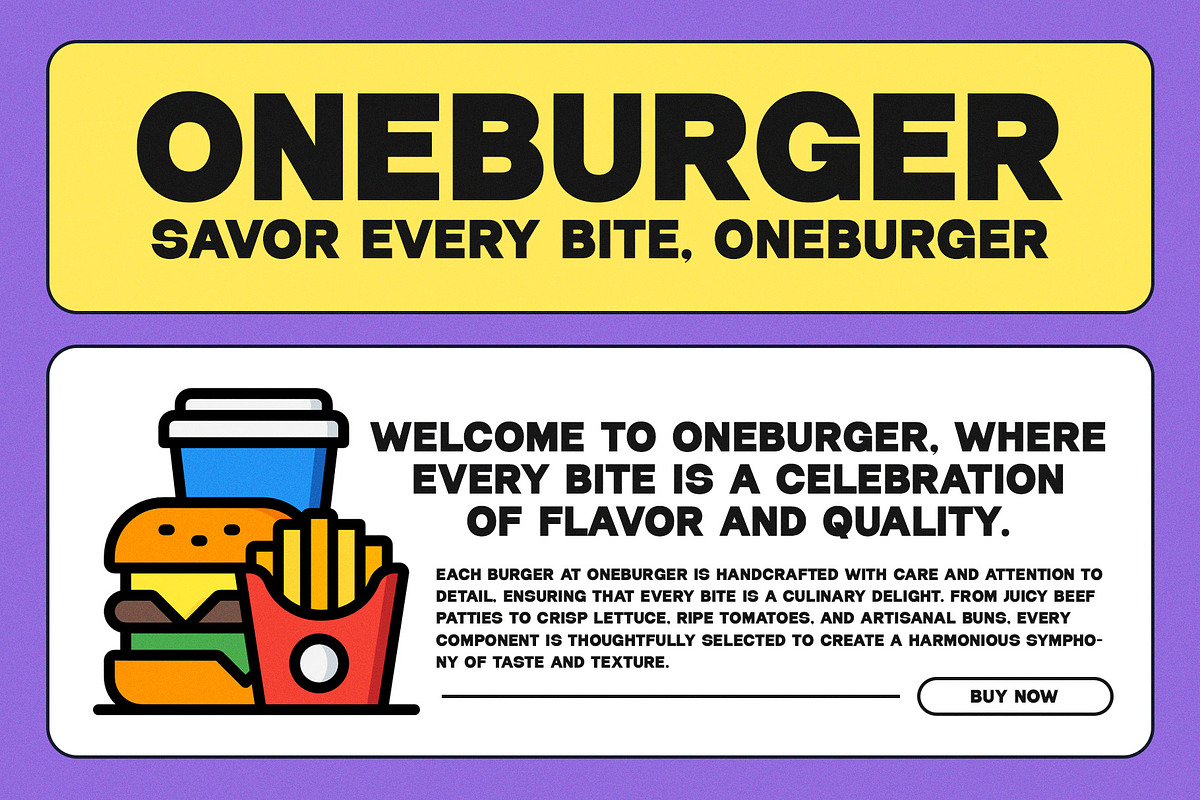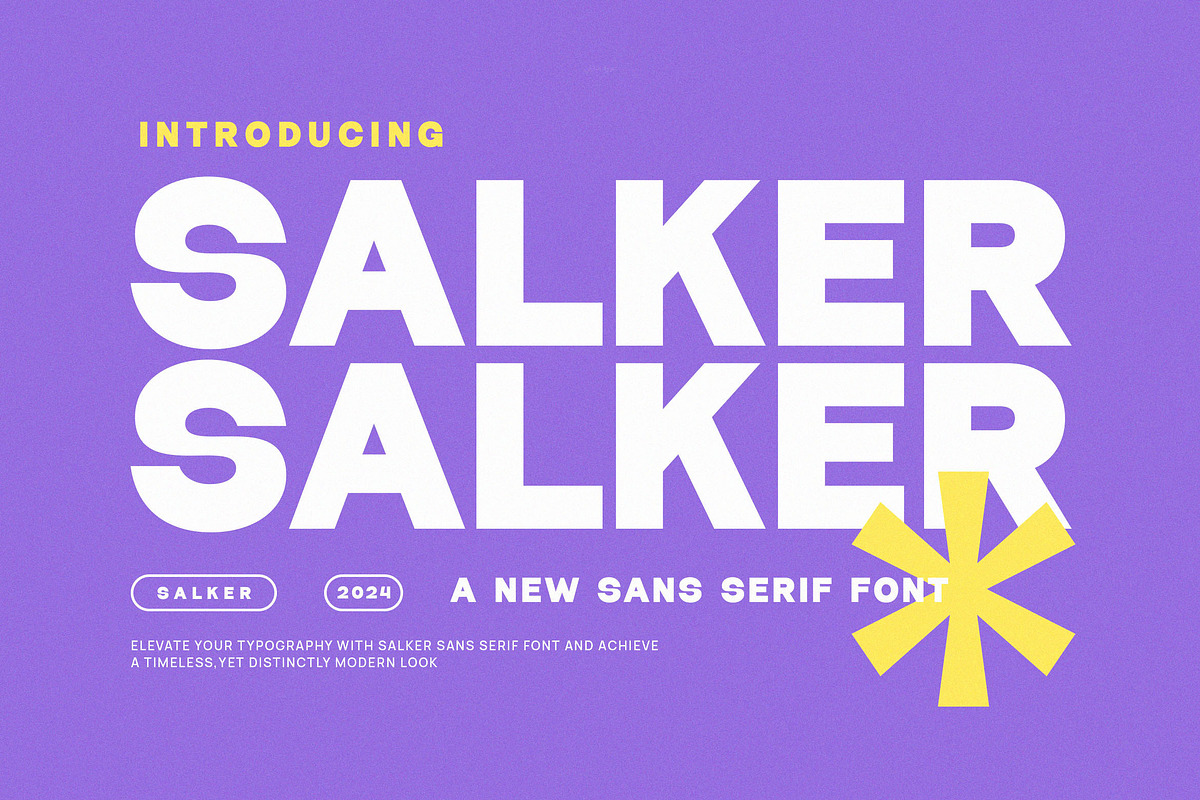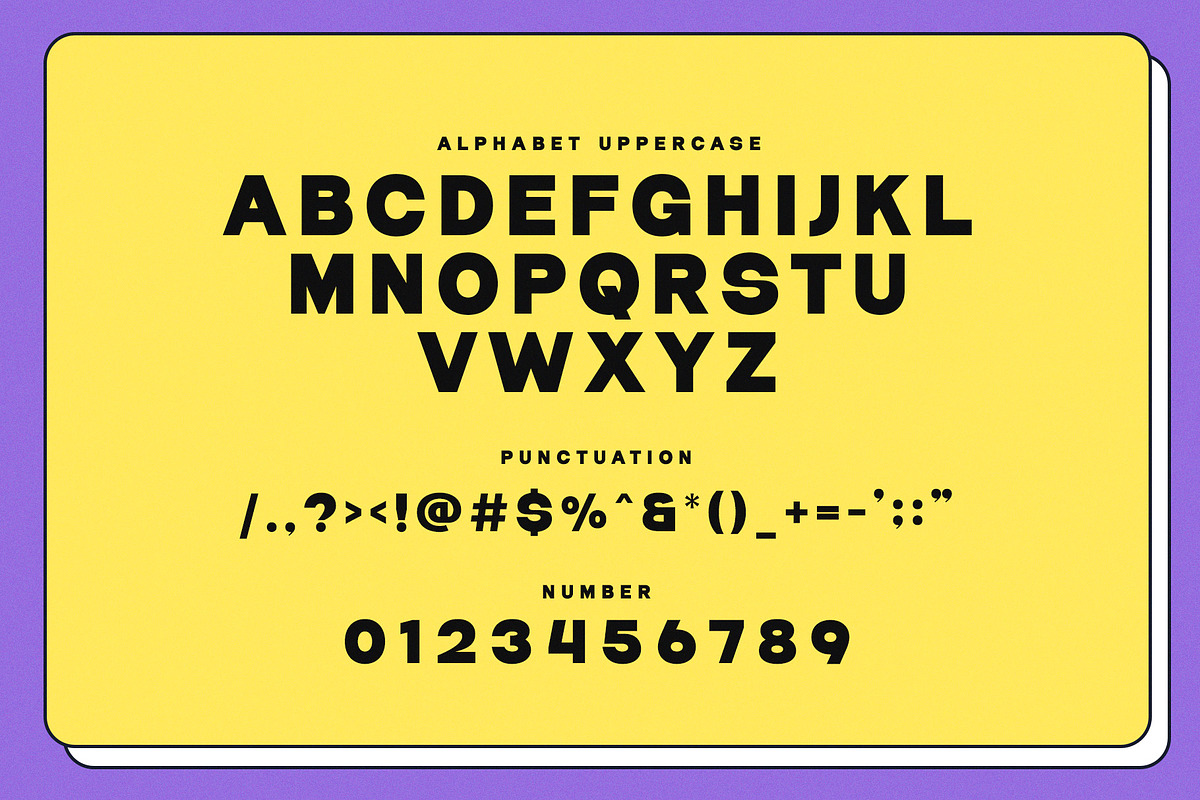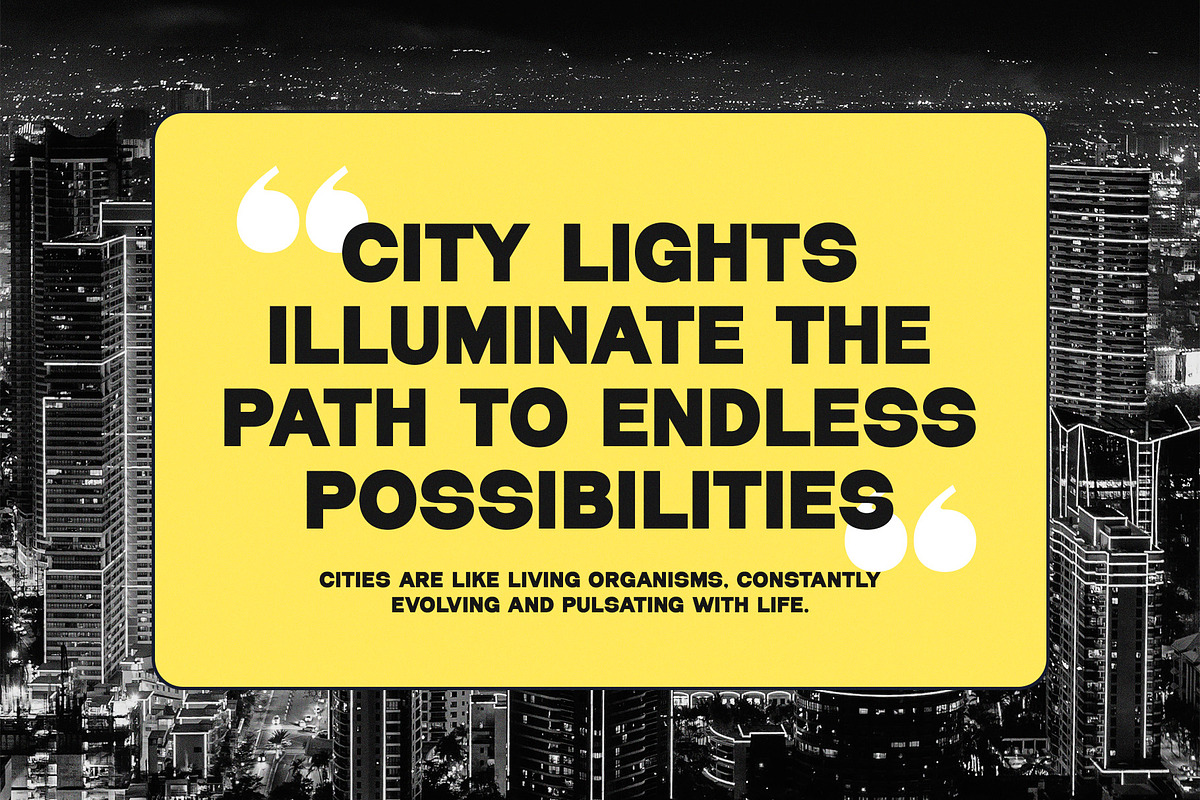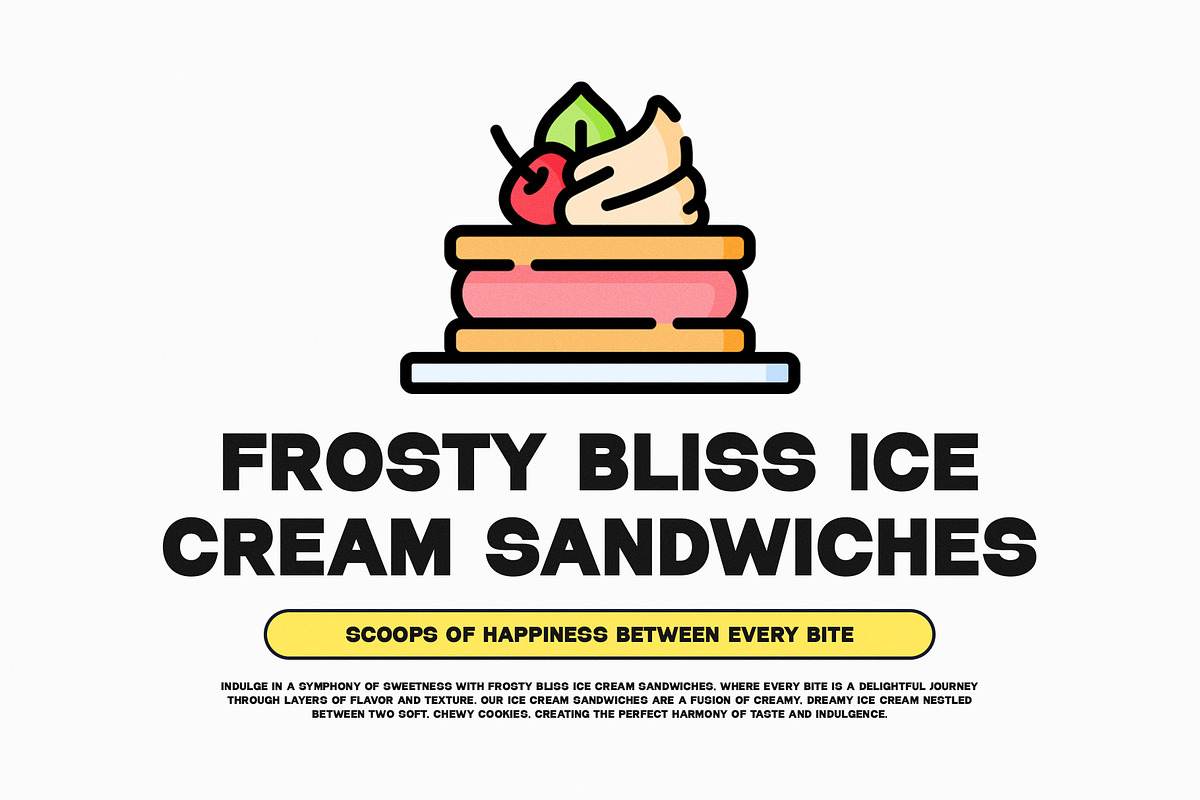
Salker - Modern Bold Sans Serif
Introducing Salker - Modern Bold Sans Serif. Salker is a modern and simple font, best used as a display for headings, logos, branding, magazines, product packaging and invitations. Thank you.